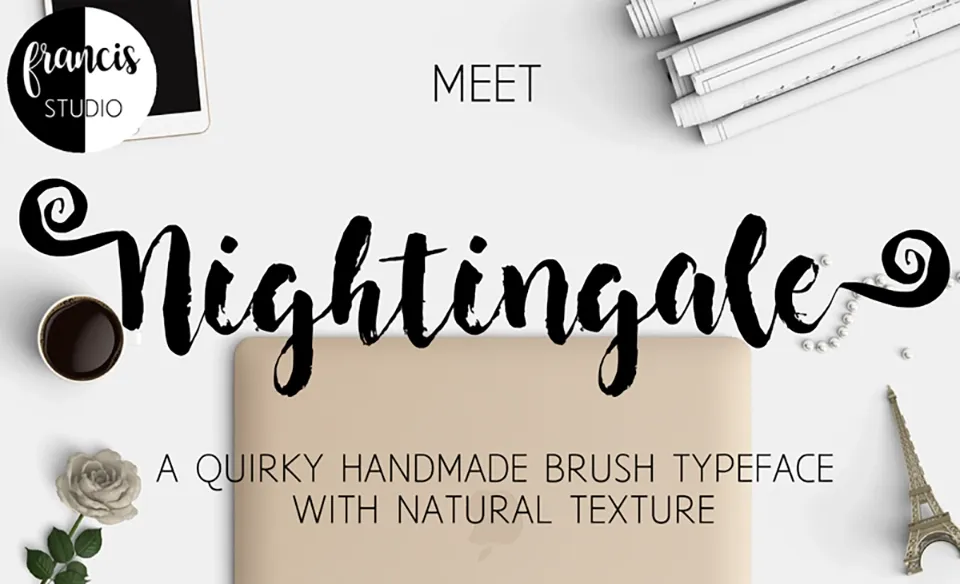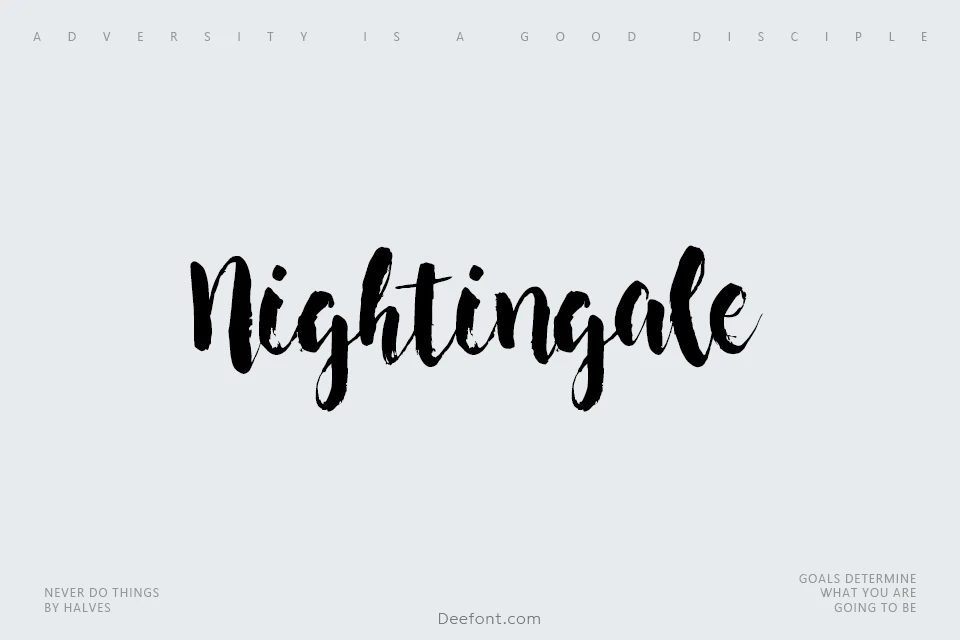
Nightingale Brush Font
Nightingale Brush Font is a quirky handmade brush typeface with a natural texture, designed to bring a dynamic, casual, and contemporary feel to your creative projects. Its thick and thin strokes add a natural hand-painted element, making it ideal for posters, covers, logos, headlines, quotes, flyers, apparel, and more. Every stroke is crafted with love, offering a unique and expressive look to your typography.